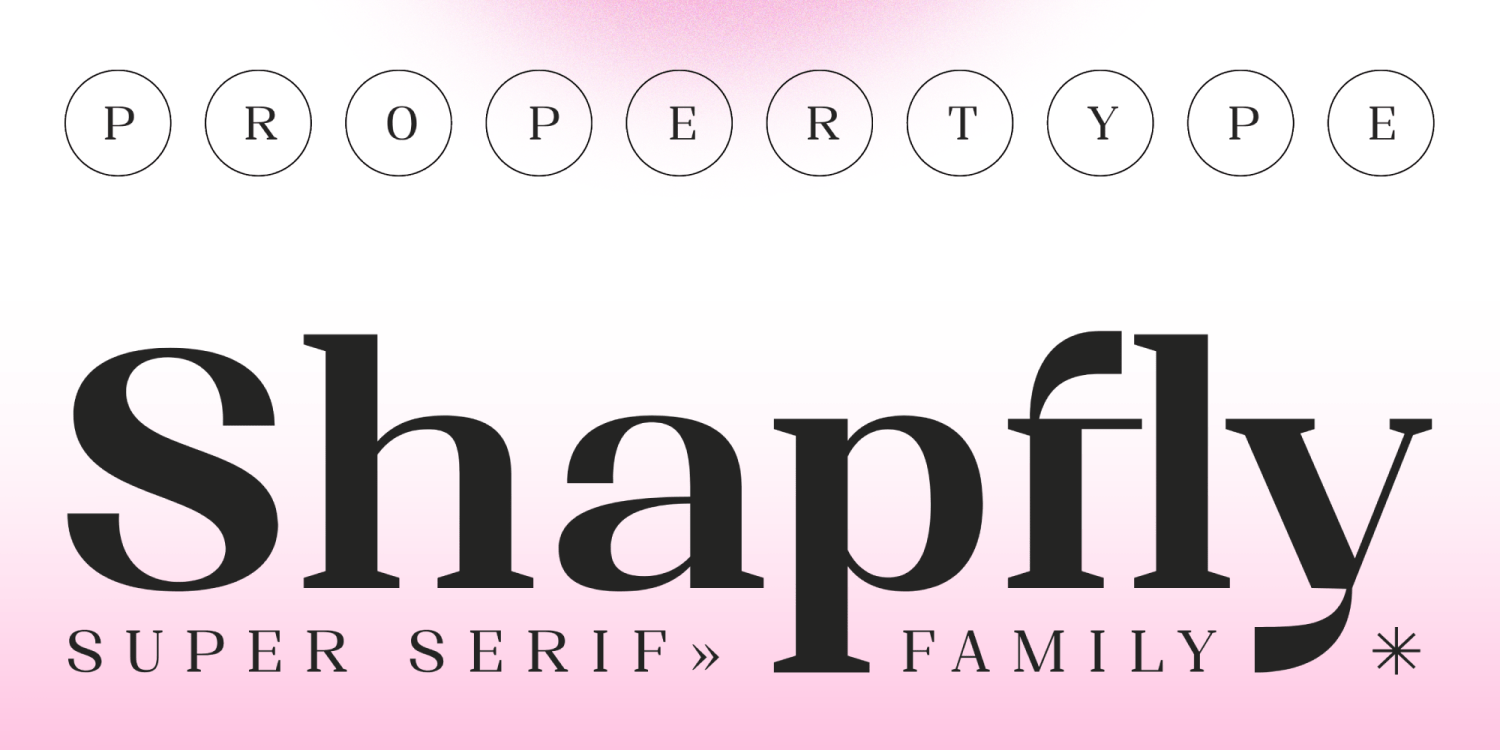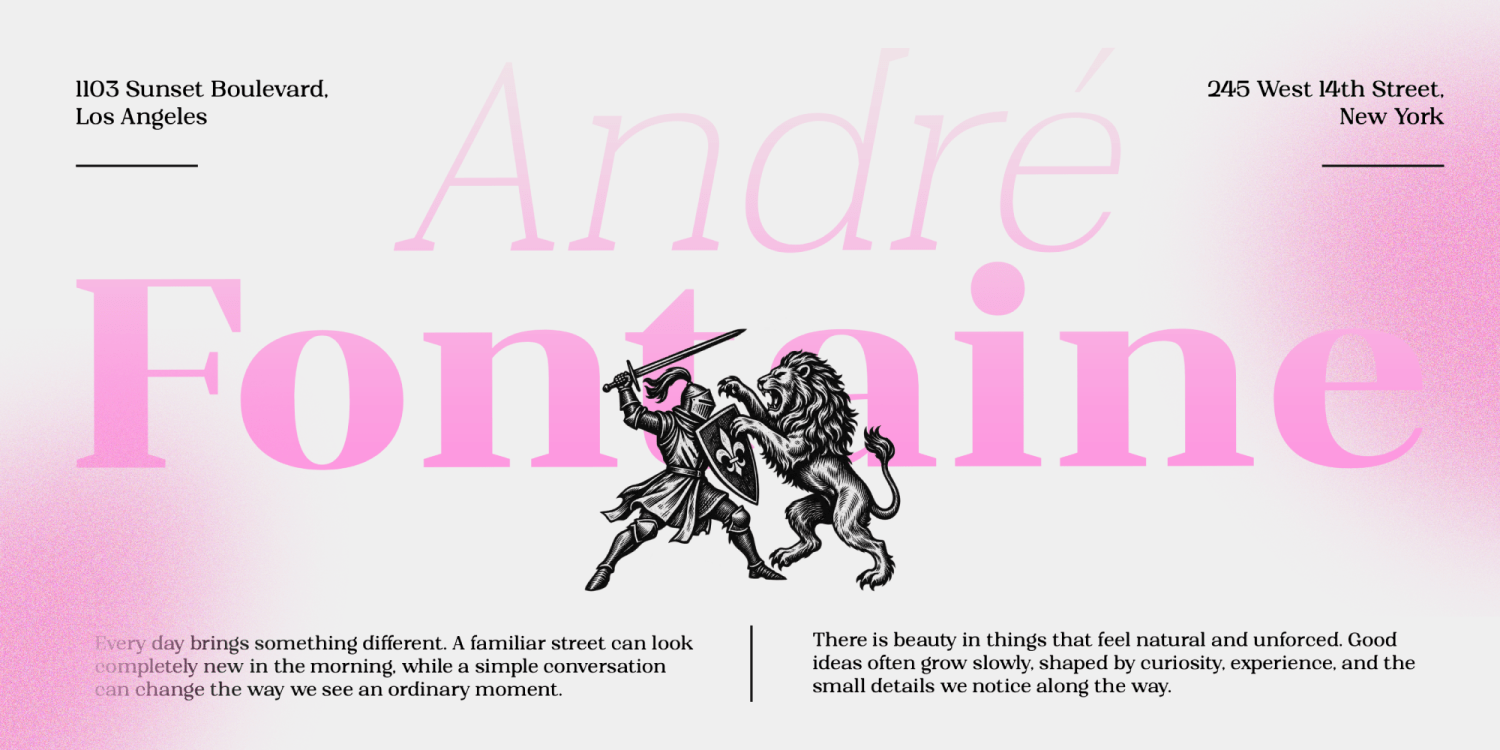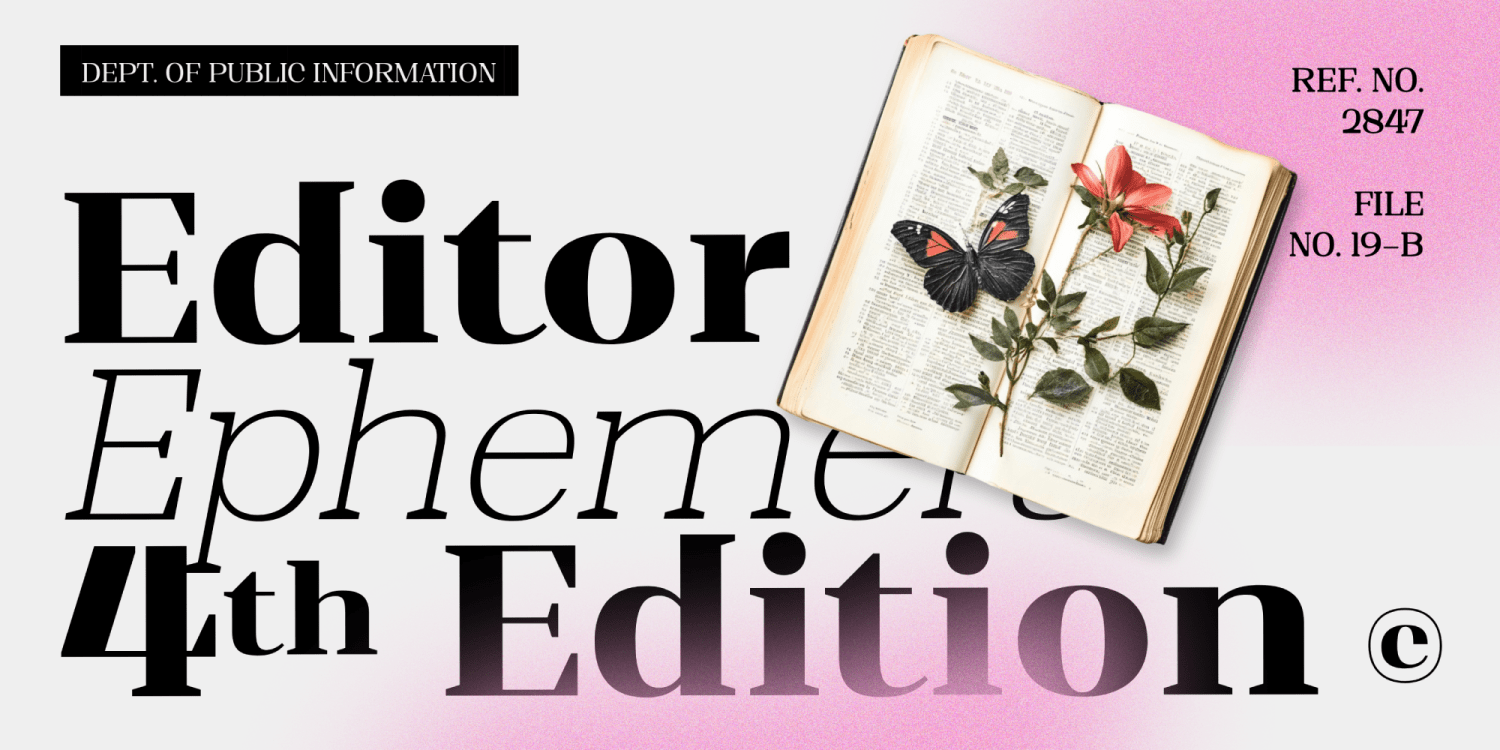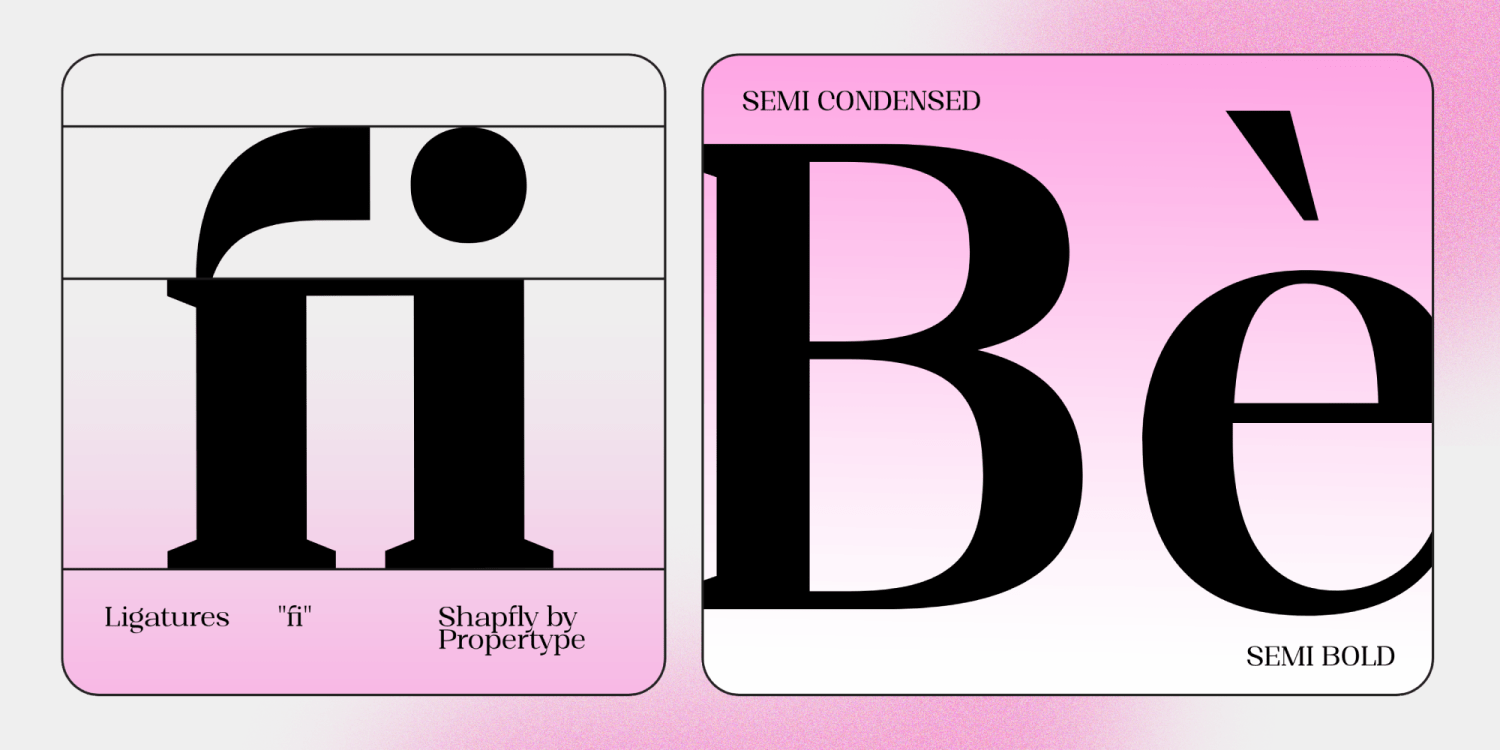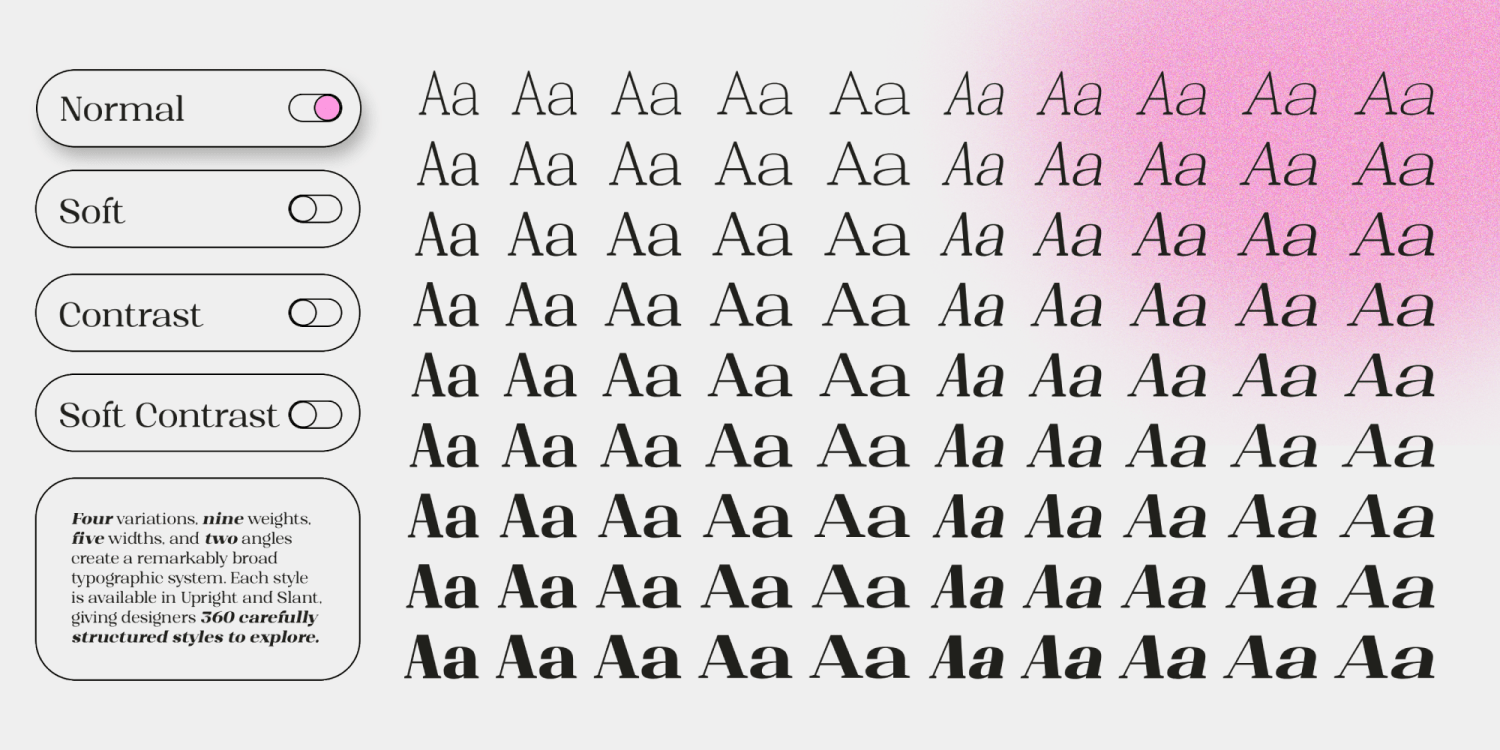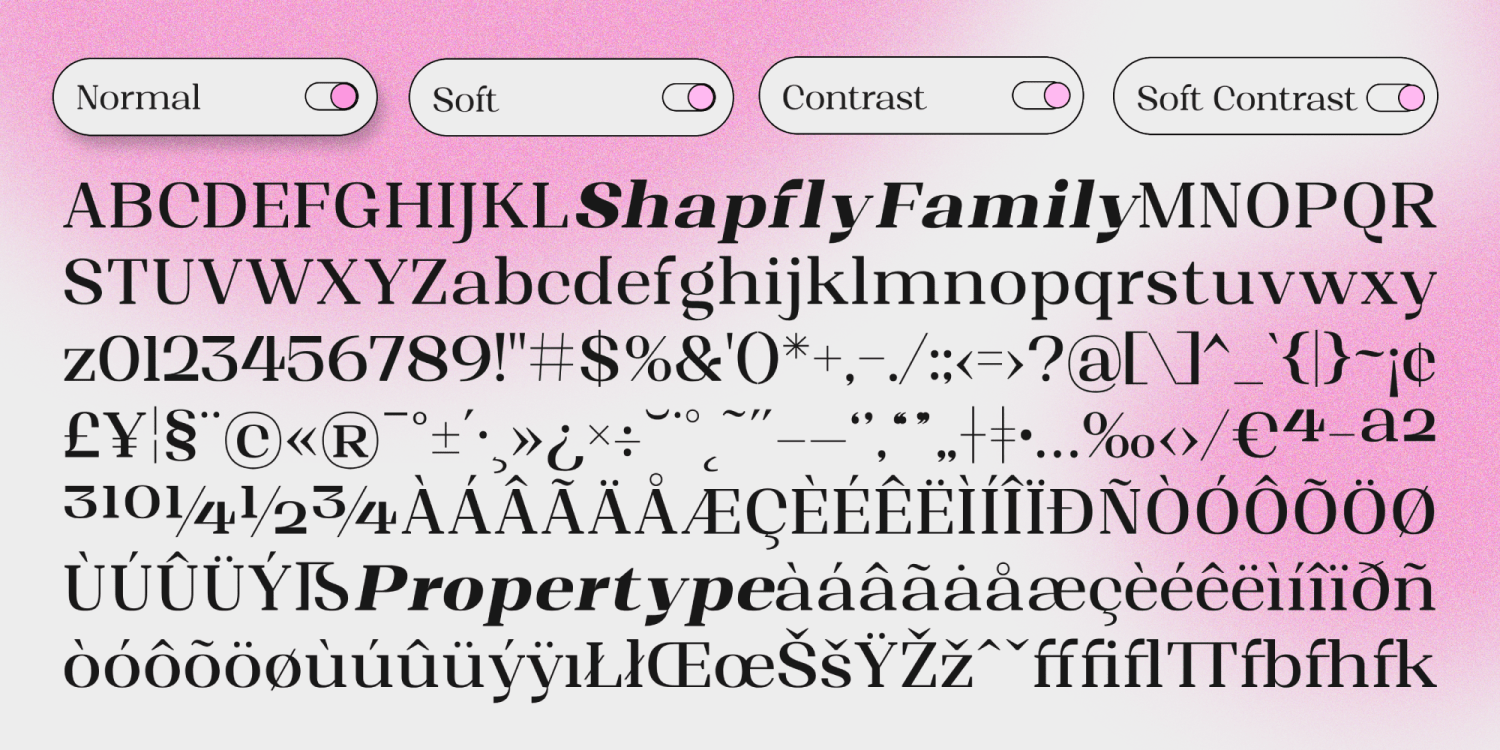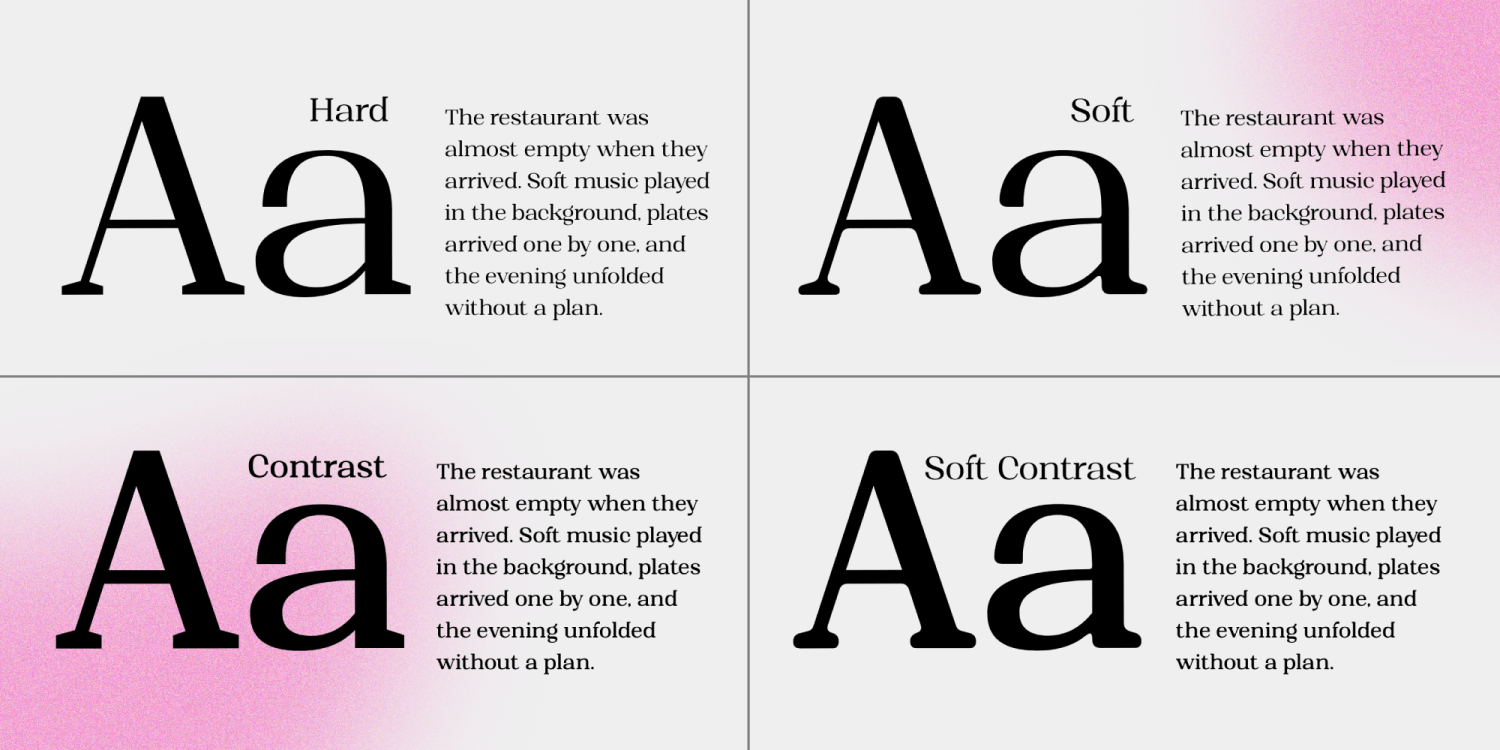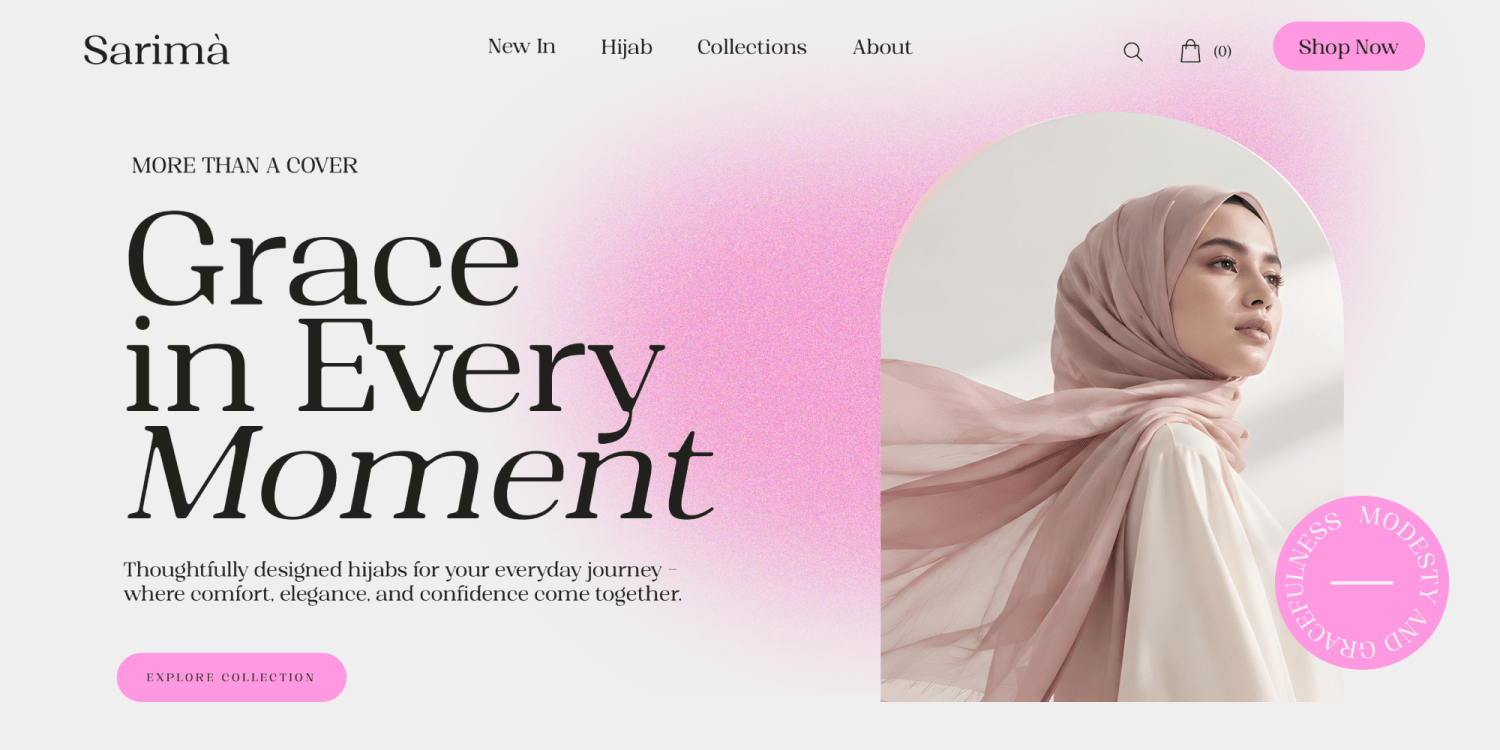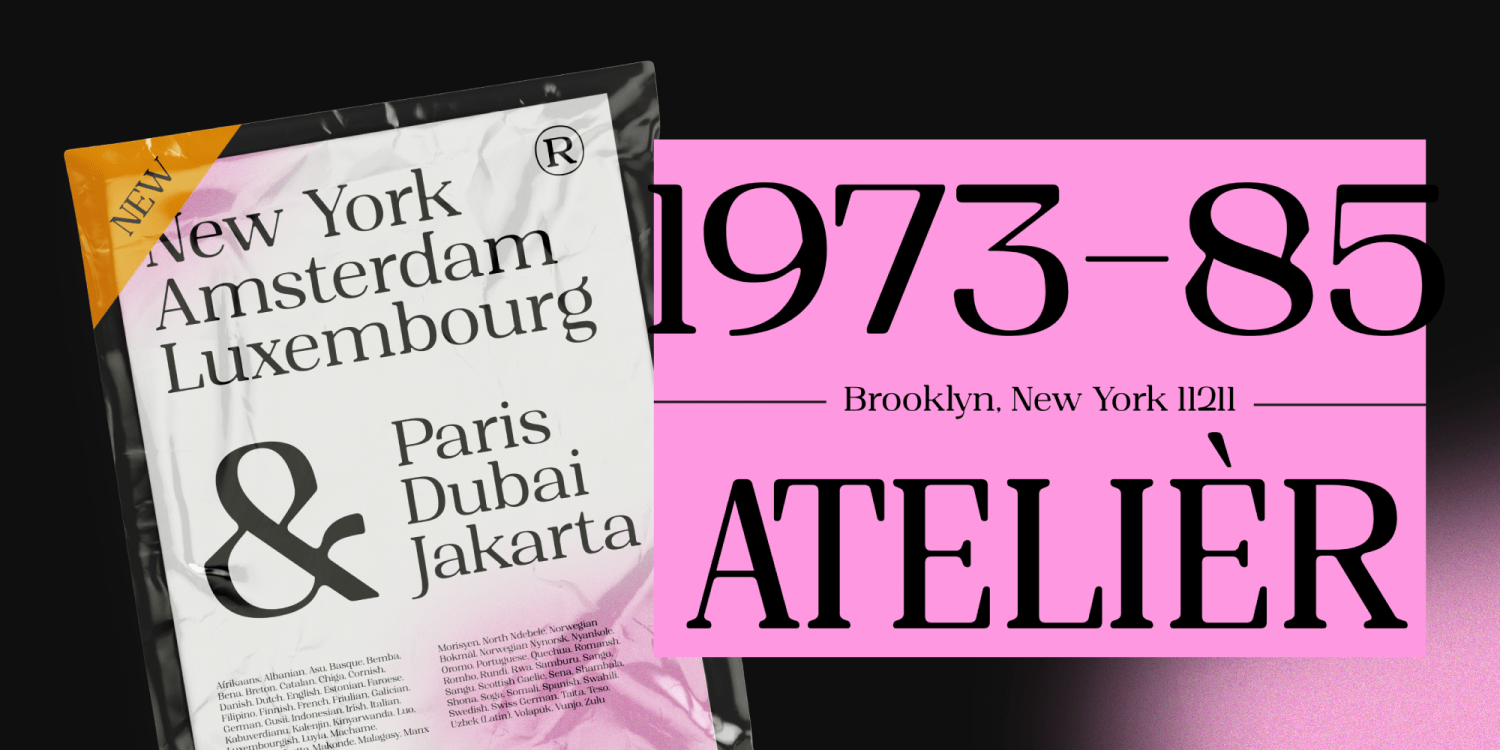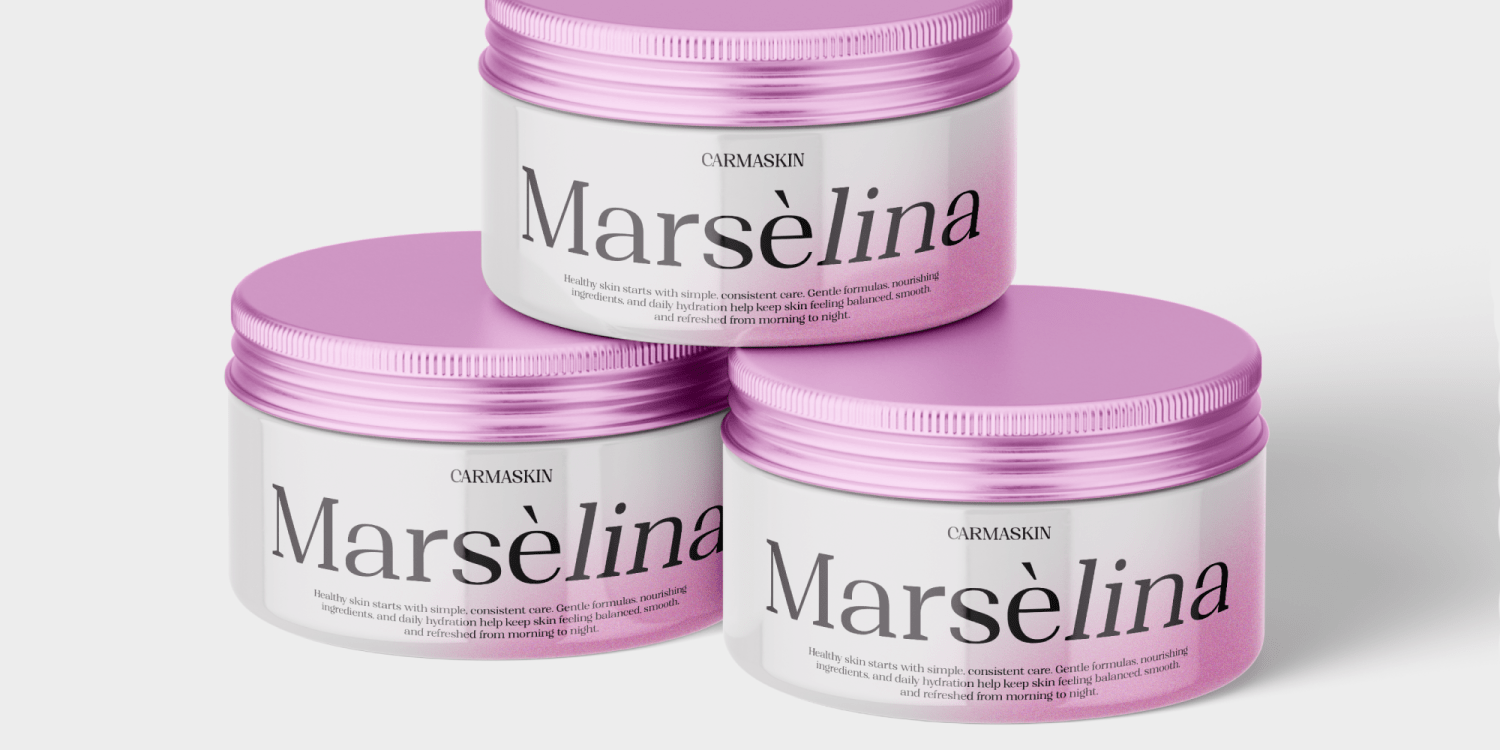
Shapfly
Shapfly Variable features high contrast, strong ink Shapfly, sharp shapes, and clean cuts to create a luxurious and elegant feel with a distinctive look. Each typeface has a warm personality and a contemporary look. With a variety of different styles, you can choose the best result for your design. You can vary the feel of your design, from subtle to bold, to the most striking style. Shapfly Serif is a brilliant choice for branding, identity design, editorial design, logo design, display and packaging design, and more.